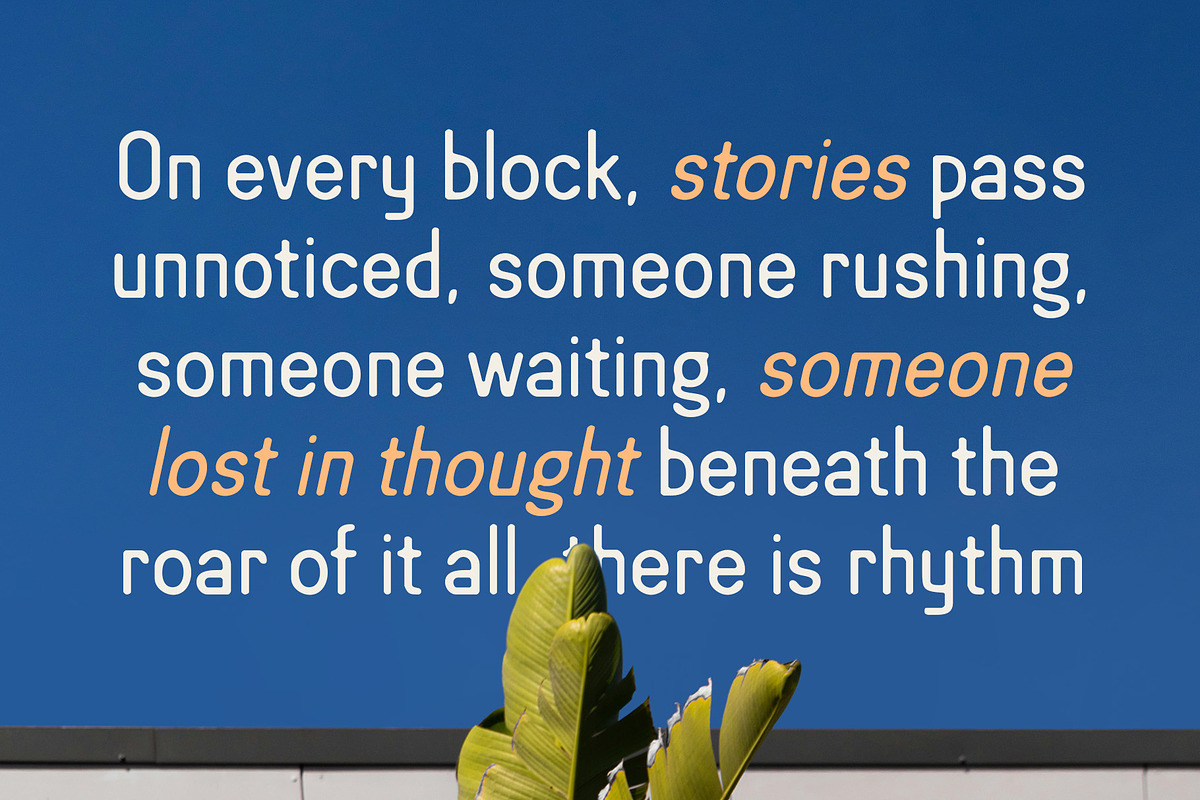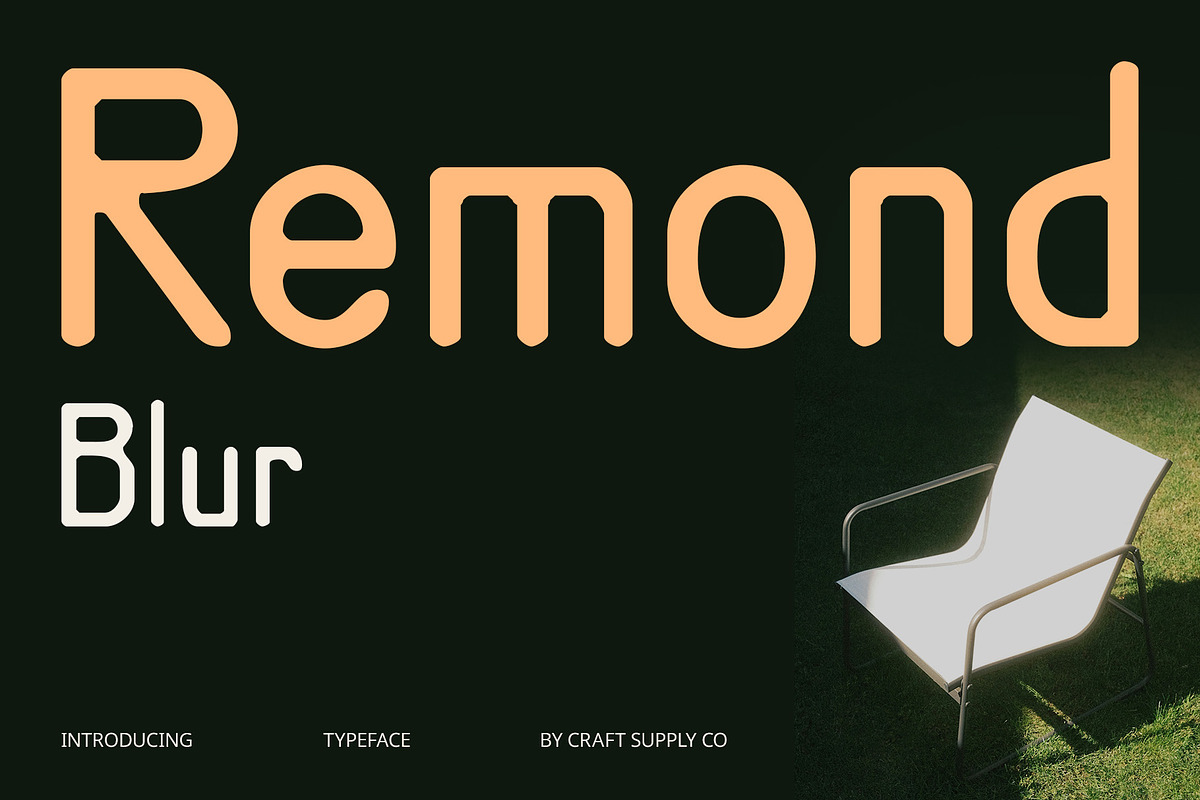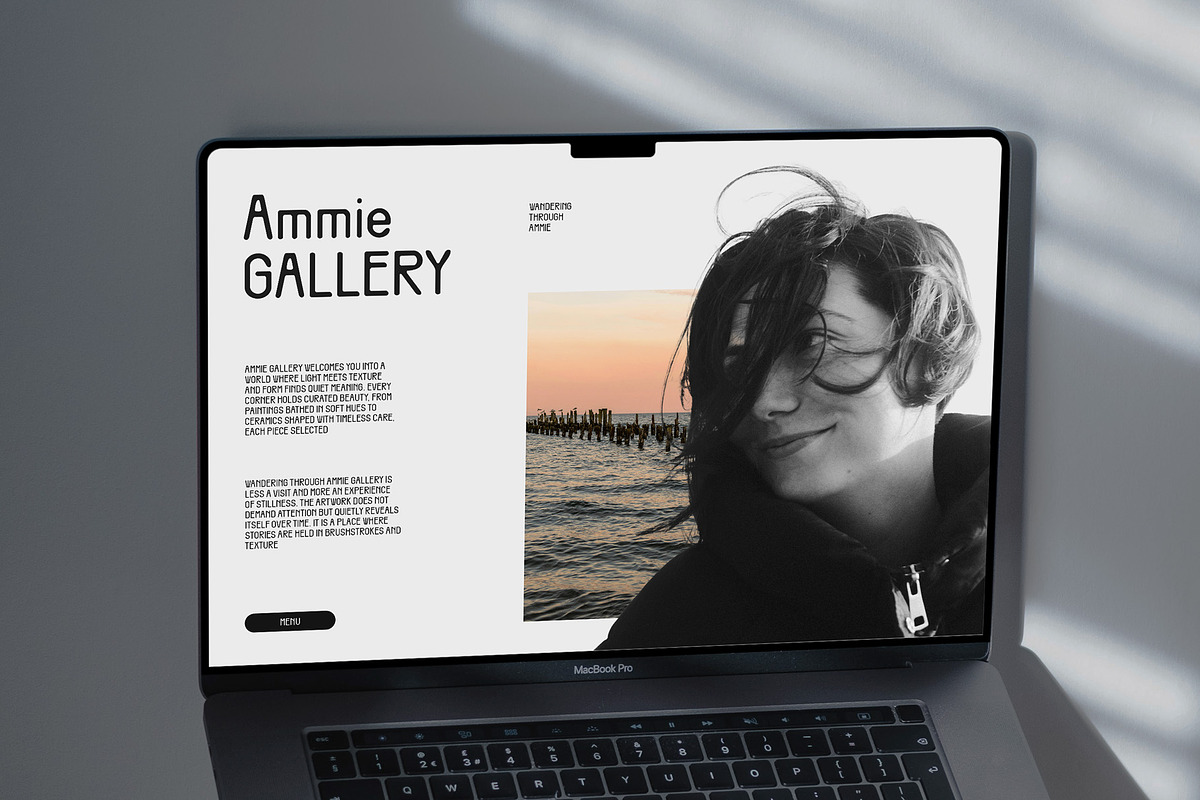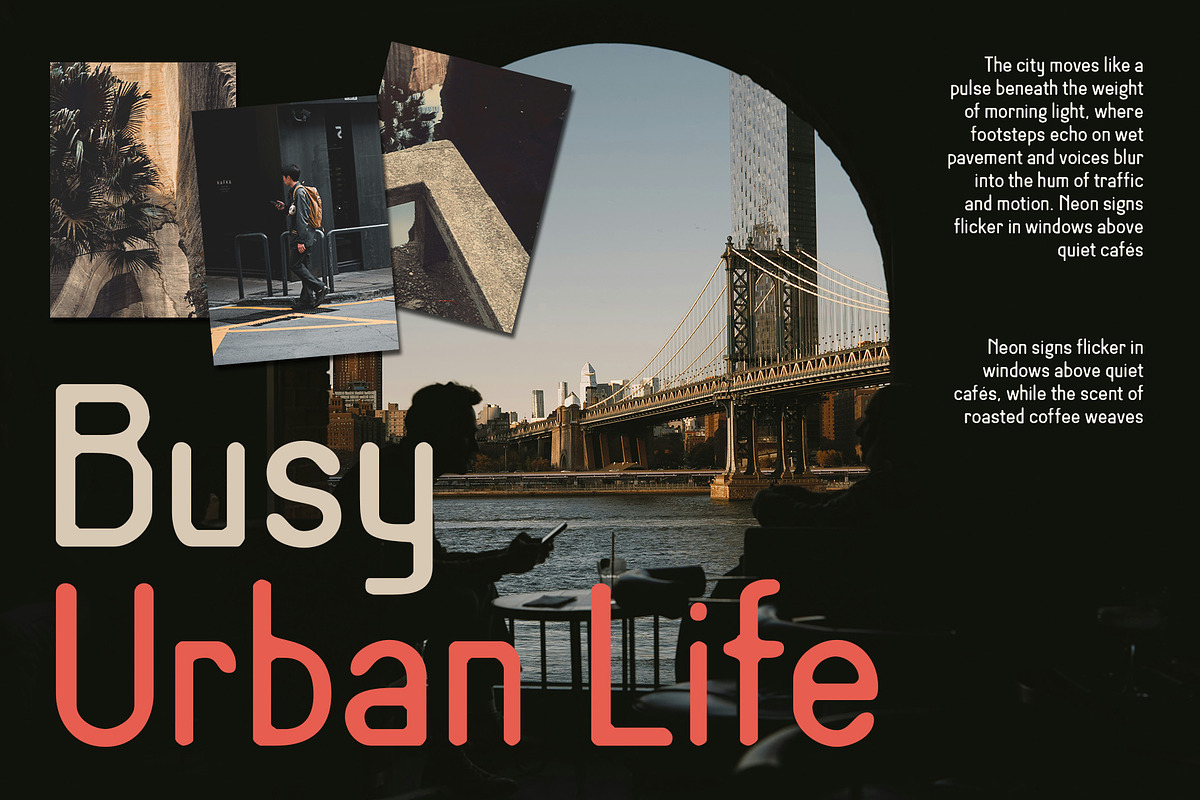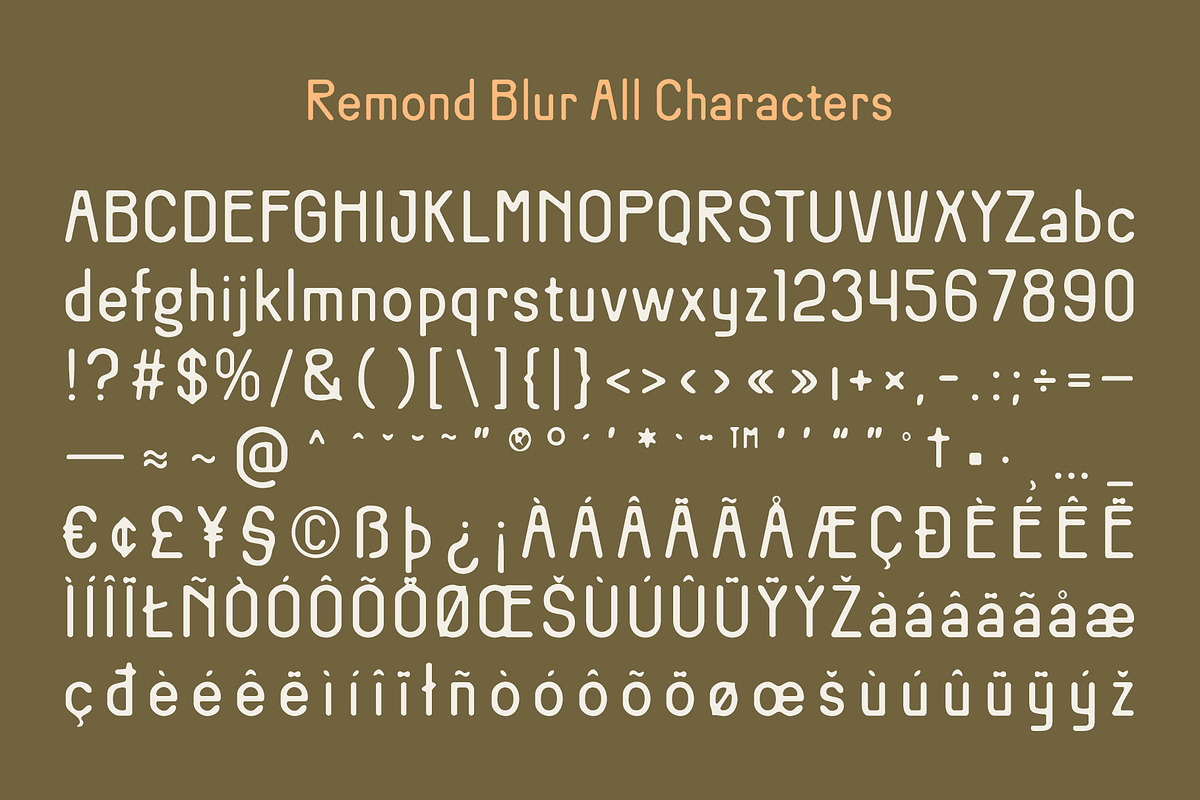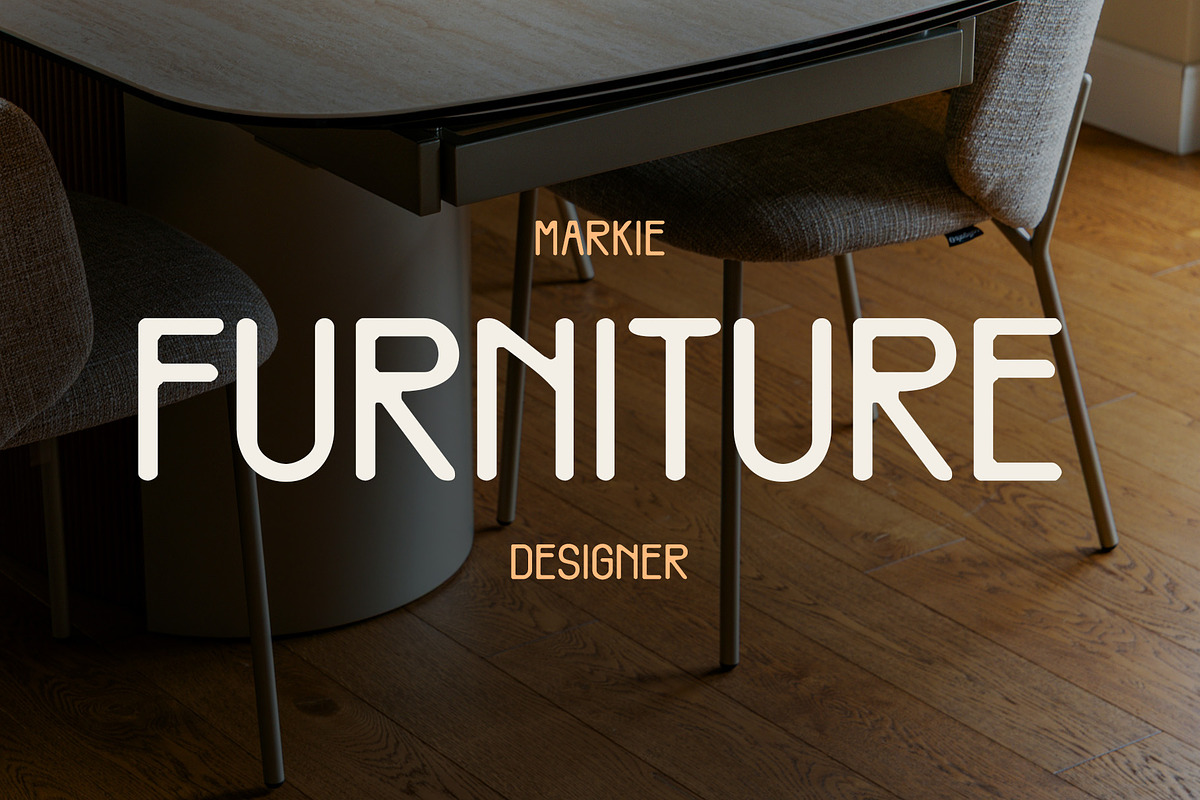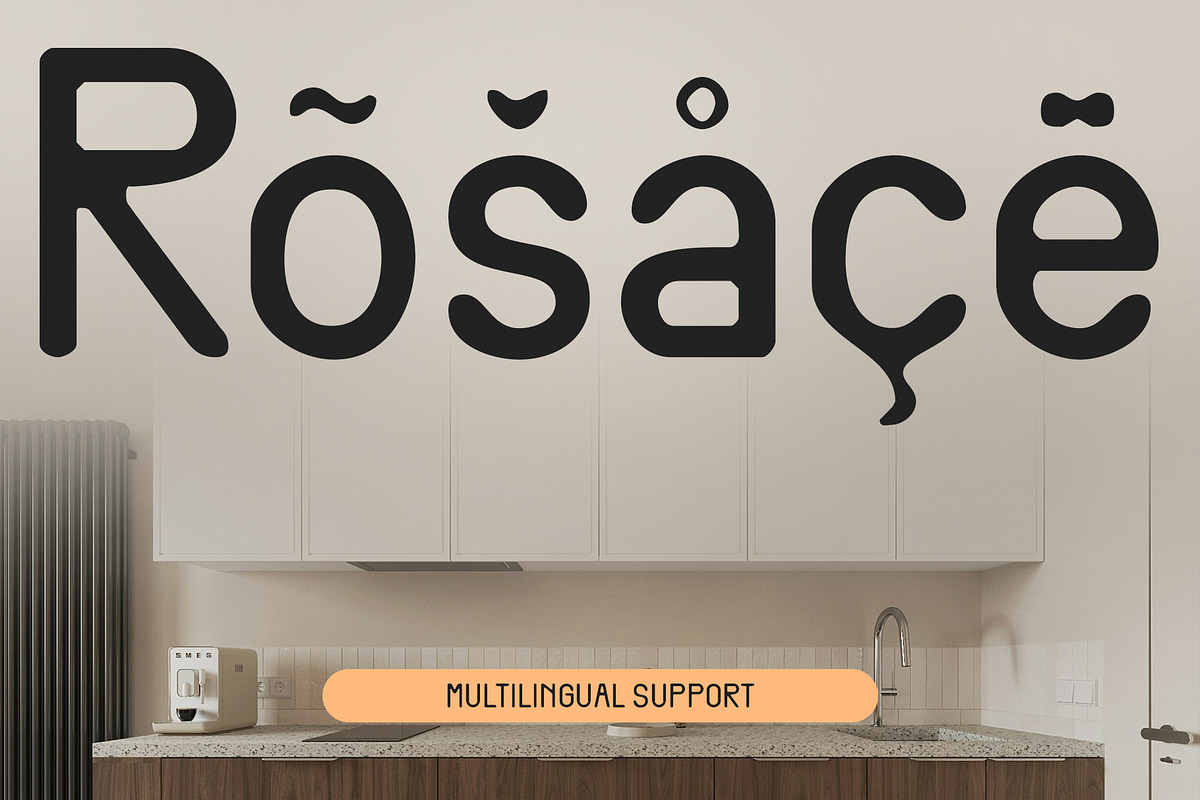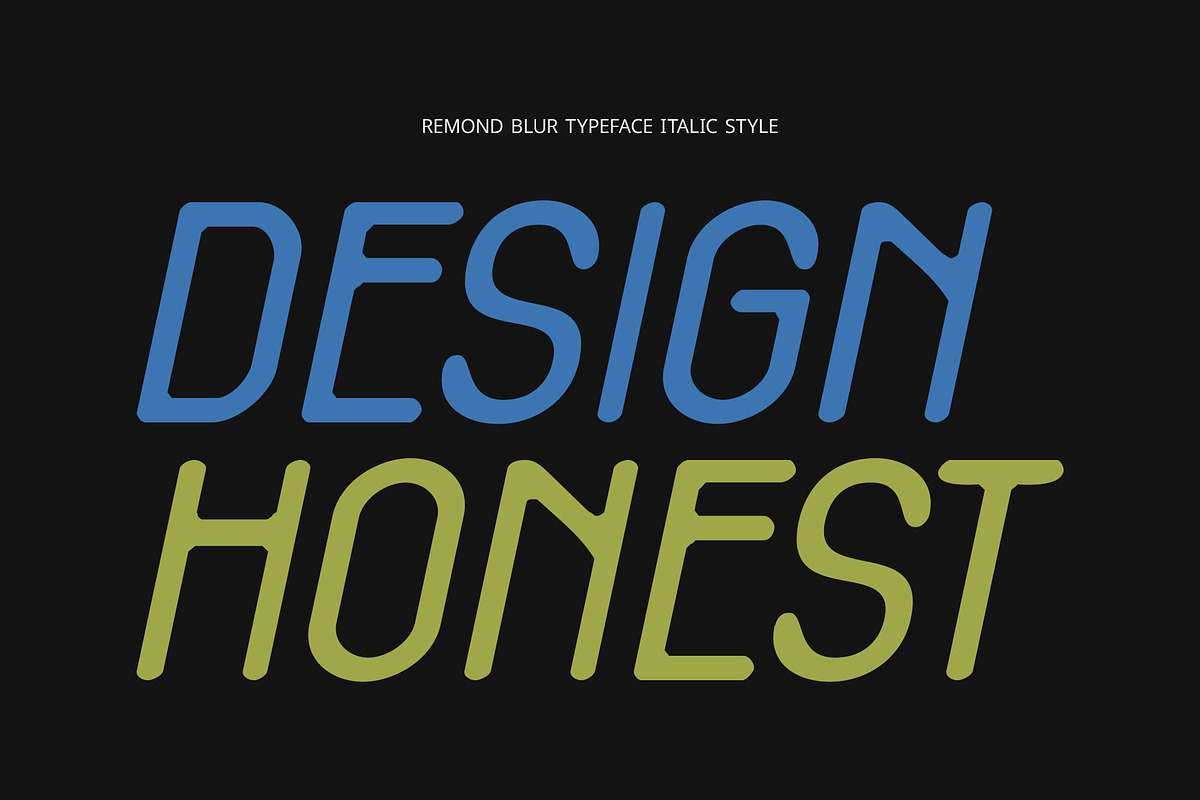
Remond Blur
Remond Blur Font – Retro Precision Meets Experimental Texture
Condensed Structure for Bold Clarity Remond Blur is a condensed sans serif font that features clean, narrow letterforms, delivering a look that is both efficient and assertive. The compact proportions make it ideal for space-conscious layouts while maintaining strong readability.
Classic Sans Serif with a Retro Vibe Drawing from classic sans serif traditions, Remond Blur carries an authentic retro tone that feels both timeless and versatile. Its simple, geometric forms echo mid-century design sensibilities, making it an excellent choice for vintage-inspired work that still demands modern functionality. Whether used for headlines, labels, or branding, it delivers a familiar yet refreshing look.
Blur Effect for Soft, Dreamlike Texture What sets Remond Blur apart is its blur effect—a visual softness that overlays the crisp letterforms. This effect introduces a slightly distorted, atmospheric quality, creating a dreamy, nostalgic, and subtly experimental aesthetic. It evokes the visual feel of worn-out prints, screen glows, or motion blur, giving your typography a rich emotional tone.
Ideal for Creative Retro-Modern Fusion Perfect for music posters, album covers, editorial designs, or experimental branding, Remond Blur blends retro clarity with modern visual intrigue. It’s especially suited for designers who want to push past the flatness of minimalism and infuse their work with texture, mood, and depth. Use it when your project calls for a balance between precision and artistic softness.